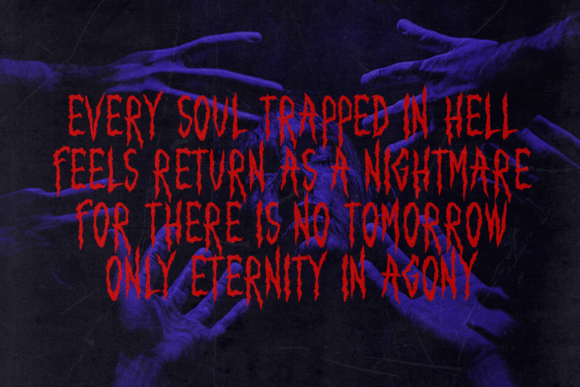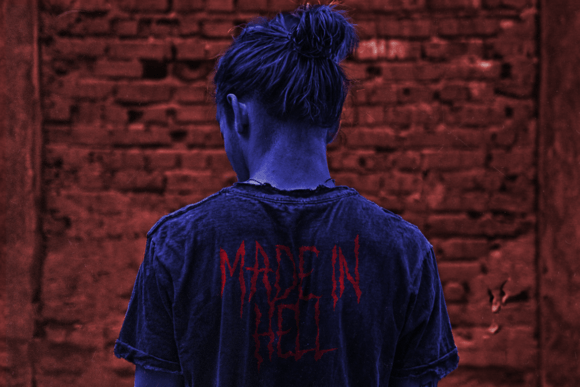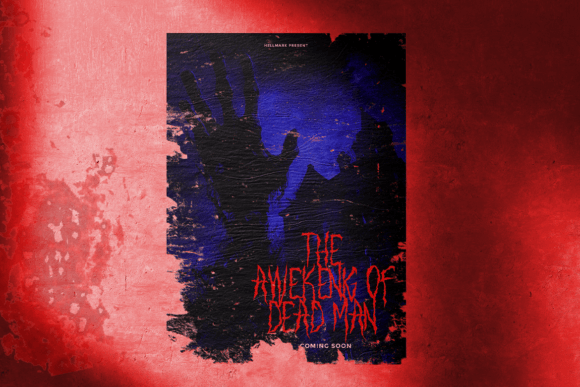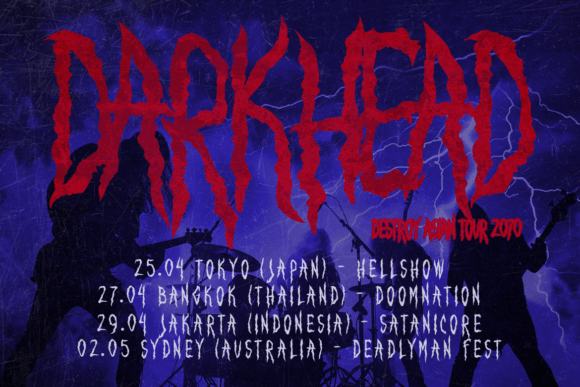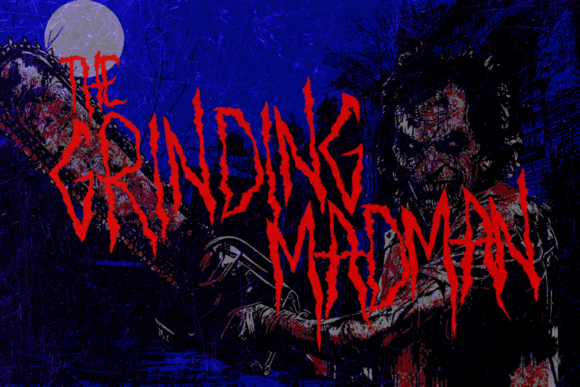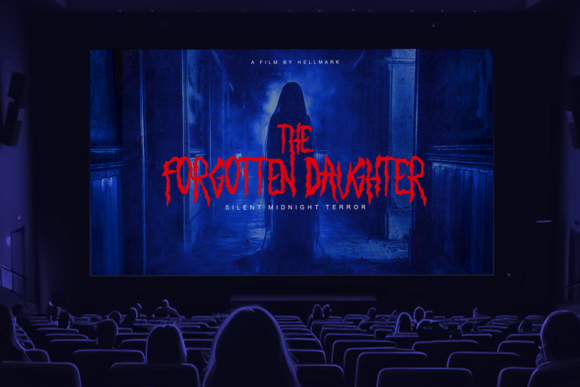
Hellmark Font: Unleash the Horror with this Striking Display Typeface
Are you looking for a font that can add a touch of horror and dread to your graphic design projects? Look no further than Hellmark Font, a striking display typeface that draws inspiration from the twisted, jagged beauty of the spiny stalk. With its aggressive, spiky edges and unsettling contours, this font is perfect for designers who want to create a bold, spine-chilling aesthetic.
The Inspiration Behind Hellmark Font
Hellmark Font is inspired by the spiny stalk, a symbol of danger, sharpness, and the eerie side of nature. The font’s distorted, broken lines give it a fractured, almost organic quality, as if the letters themselves are growing from dark, twisted roots or creeping vines. This unique design makes Hellmark Font stand out from other typefaces and gives it a distinctive, unsettling feel.
Perfect for Horror-Themed Projects
Hellmark Font is ideal for horror-themed posters, eerie movie titles, Halloween promotions, and spooky branding. Its sharp, thorn-like features create a sense of tension and unease, making it a perfect choice for horror, thriller, or dark fantasy projects. Whether you’re crafting eye-popping title designs, creating atmospheric flyers, or working on a graphic novel cover, Hellmark brings an unmistakable edge to your designs.
Key Features of Hellmark Font
- Aggressive, spiky edges: Hellmark Font features aggressive, spiky edges that give it a bold, attention-grabbing quality.
- Unsettling contours: The font’s unsettling contours add to its eerie, horror-themed feel.
- Distorted, broken lines: The distorted, broken lines give Hellmark Font a fractured, almost organic quality.
- Perfect for horror-themed projects: Hellmark Font is ideal for horror-themed posters, eerie movie titles, Halloween promotions, and spooky branding.
How to Use Hellmark Font in Your Designs
Hellmark Font can be used in a variety of design projects, from posters and flyers to graphic novels and branding materials. Here are a few tips for using Hellmark Font in your designs:
- Use it sparingly: Hellmark Font is a bold, attention-grabbing typeface, so use it sparingly to avoid overwhelming your design.
- Pair it with contrasting fonts: Pair Hellmark Font with contrasting fonts to create visual interest and add depth to your design.
- Experiment with different colors: Hellmark Font looks great in bold, bright colors, but it can also be used in more muted, pastel colors to create a eerie, unsettling effect.
Hellmark Font is a striking display typeface that’s perfect for designers who want to add a touch of horror and dread to their graphic design projects. With its aggressive, spiky edges and unsettling contours, this font is ideal for horror-themed posters, eerie movie titles, Halloween promotions, and spooky branding. Whether you’re a designer, craft or a DIY enthusiast, Hellmark Font is a great choice for anyone looking to create a bold, spine-chilling aesthetic.